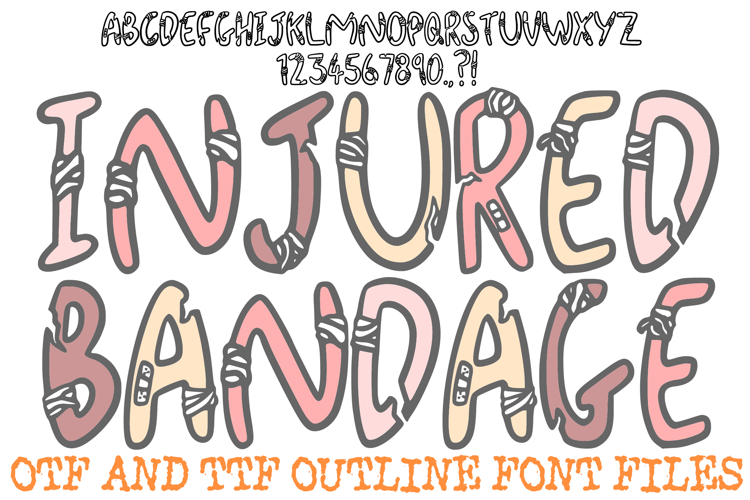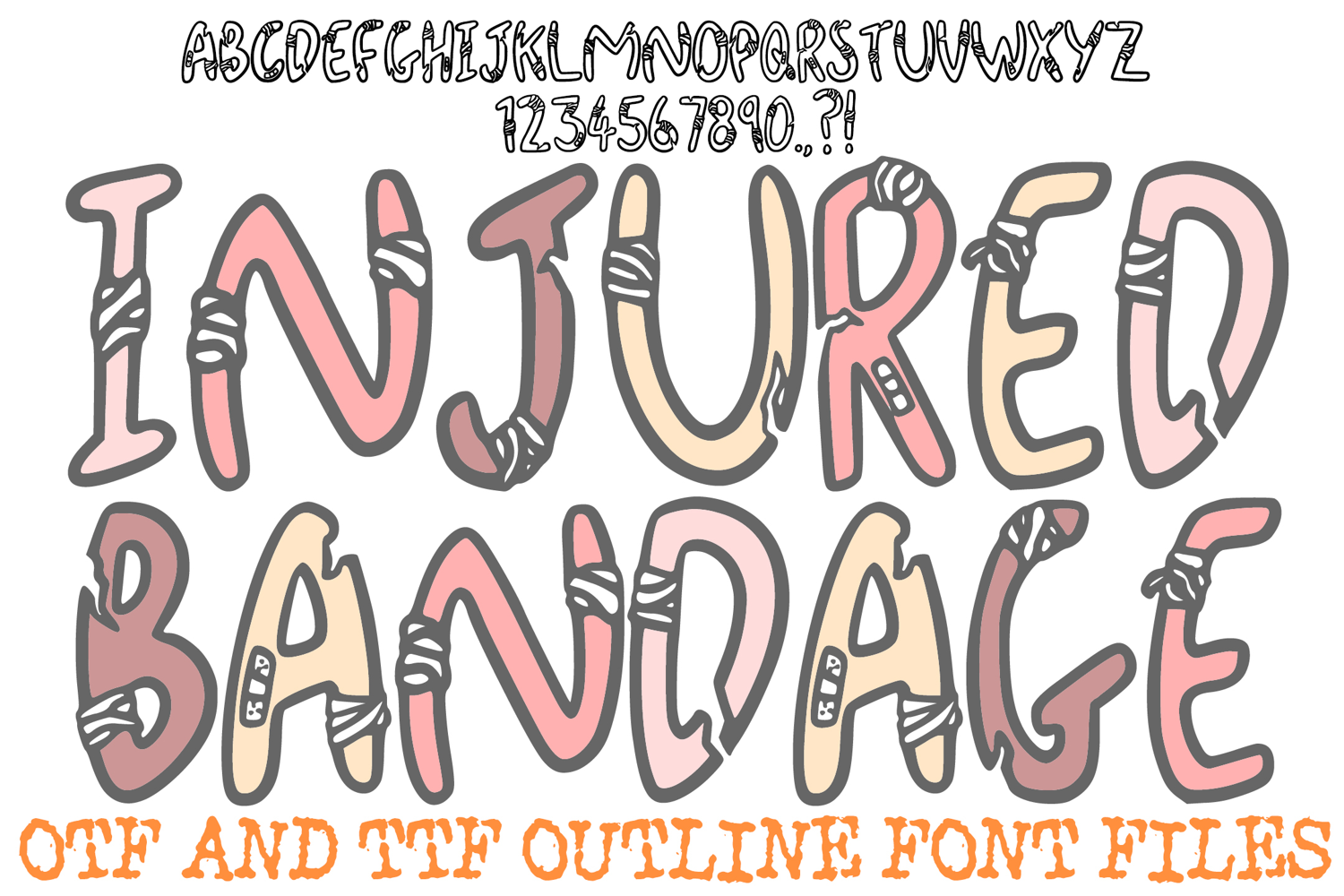
Injured Bandage Hospital Font Cartoon Typography Lettering
Give your designs a tough but playful personality with the Injured Bandage Font! This hand-drawn display alphabet features bold, blocky characters that appear "battered," complete with realistic bandage wraps and textured cracks throughout each letter and number. It is an ideal choice for "get well soon" cards, medical-themed branding, quirky Halloween stickers, and high-energy social media graphics.
Each character is designed to look resilient, blending a sturdy "puffy" silhouette with detailed medical dressings and adhesive bandages. Whether you are designing for a health-focused campaign, a fun first-aid kit label, or a "zombie-medic" themed poster, the Injured Bandage Font adds a unique, storytelling element to your typography.
Why Your Designs Will Stand Out:
Detailed Bandage Textures: Every character features hand-drawn adhesive bandages and wraps that give the font a 3D, tactile feel.
"Cracked" Silhouette Effect: Jagged lines and internal cracks add to the distressed aesthetic, making the letters look like they’ve seen some action.
High-Impact Legibility: Despite the heavy distressing, the bold outlines ensure your message remains clear and easy to read.